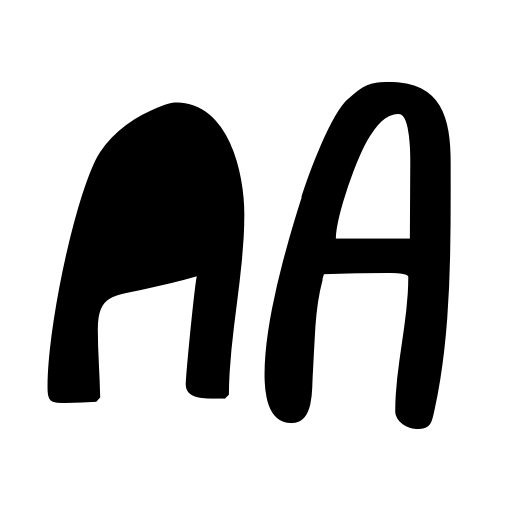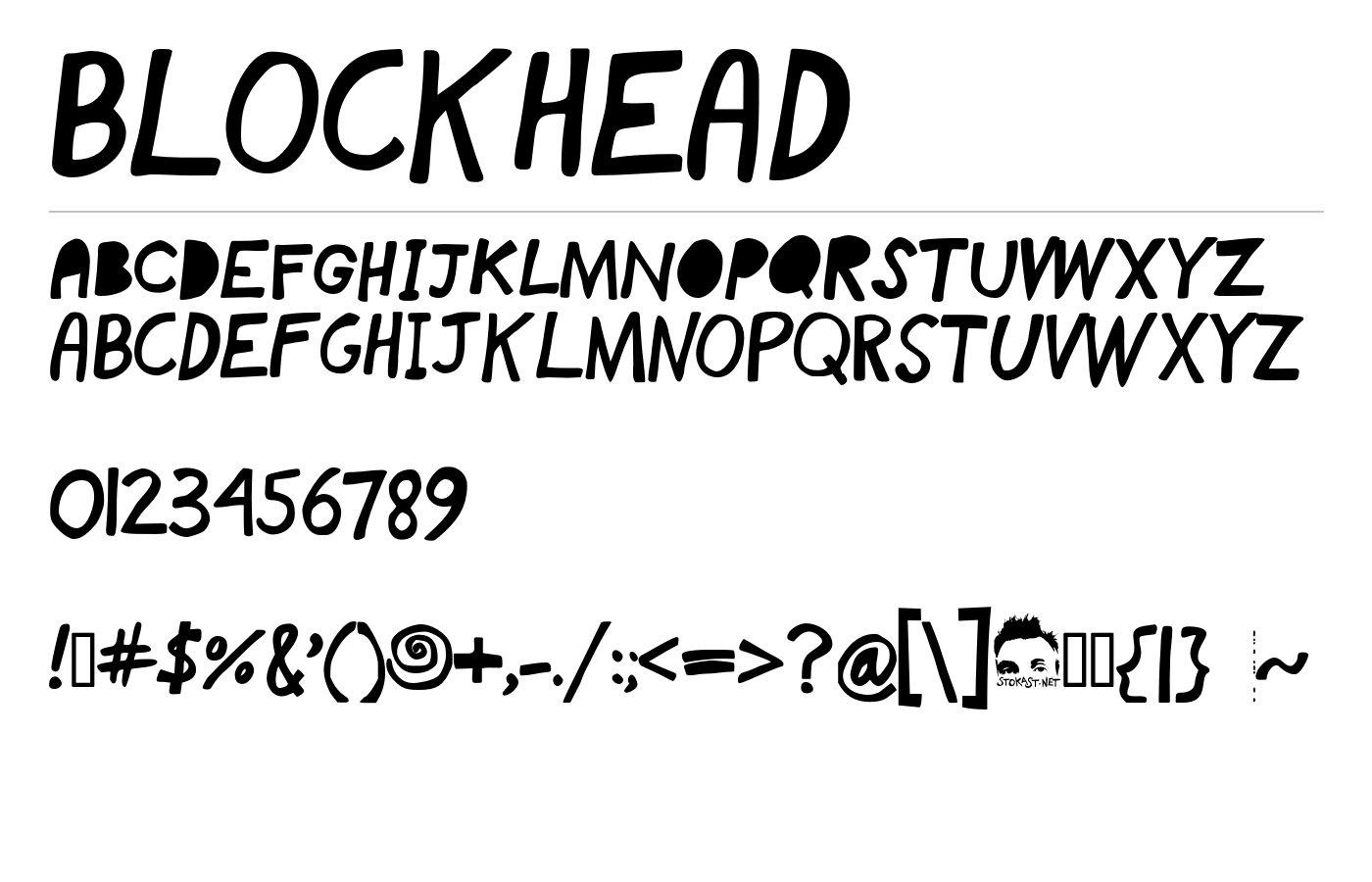
Blockhead is a playful and casual sans serif font with a hand-drawn feel, featuring irregular, bold shapes and a lively rhythm. Its slightly condensed letterforms with varying stroke widths and quirky details make it perfect for fun, informal designs like children's books, posters, and creative branding that seek a friendly and approachable vibe. This font stands out by adding personality and charm wherever a relaxed, energetic look is needed.
blockhead Font
About blockhead Font